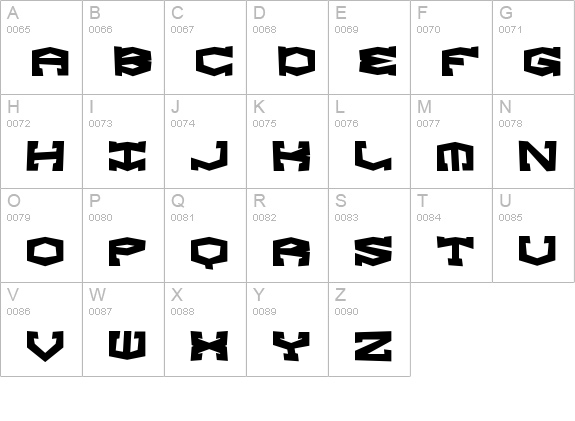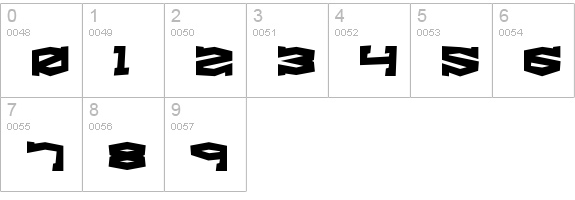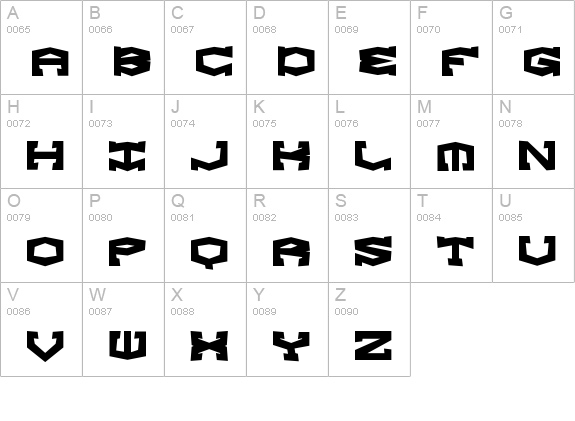
Gyrose Shift BRK Font Details
Gyrose Shift BRK font is a versatile and modern typeface that exudes sophistication and style. With its unique geometric shapes and dynamic design, this font is perfect for creating eye-catching headlines, logos, and branding materials. The distinctive angular strokes give it a sense of movement and energy, making it ideal for projects that require a contemporary and edgy look. What sets Gyrose Shift BRK font apart is its versatility and readability across various design applications. Whether used in print or digital projects, this font stands out and captivates the audience with its bold and impactful presence. Its clean lines and sharp edges make it a great choice for posters, banners, websites, and more. And the best part? Gyrose Shift BRK font is available for free download at FontsMarket.com. This means you can easily access this stylish typeface and use it in your projects without any cost. Don't miss out on this opportunity to enhance your designs with the modern and captivating Gyrose Shift BRK font.